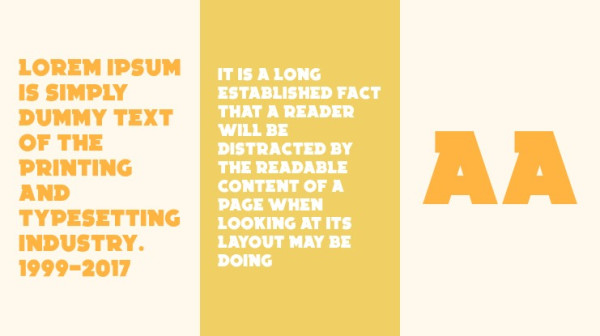
Thunderbold Serif Font
Thunderbold Serif Font, This bundle features strong, confident and powerful typefaces designed to work great with sports logos, club branding, apparel applications, labels and more.